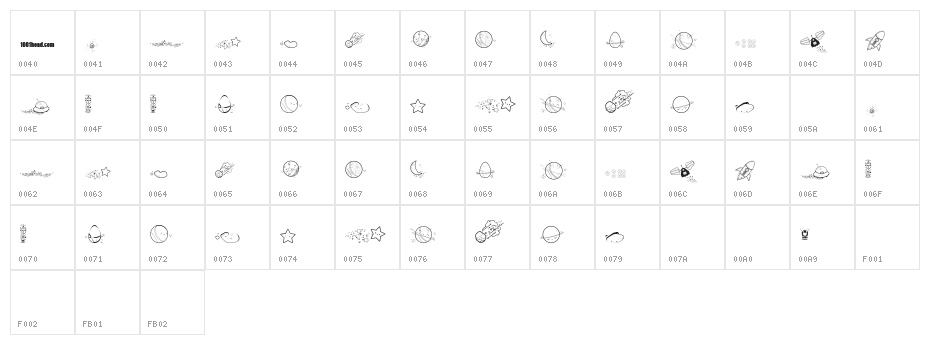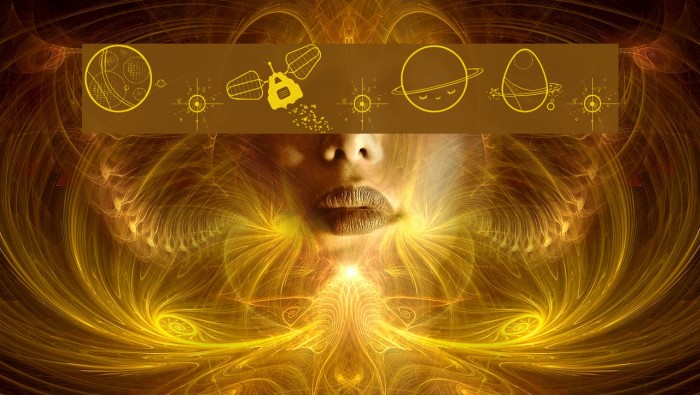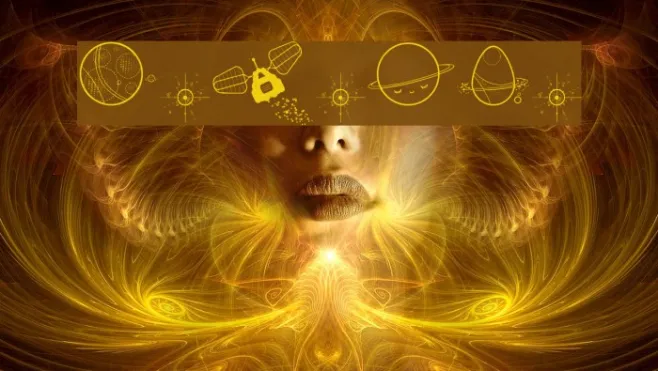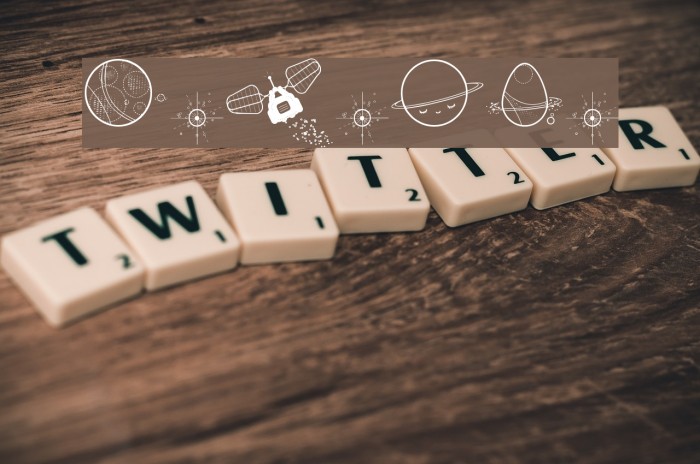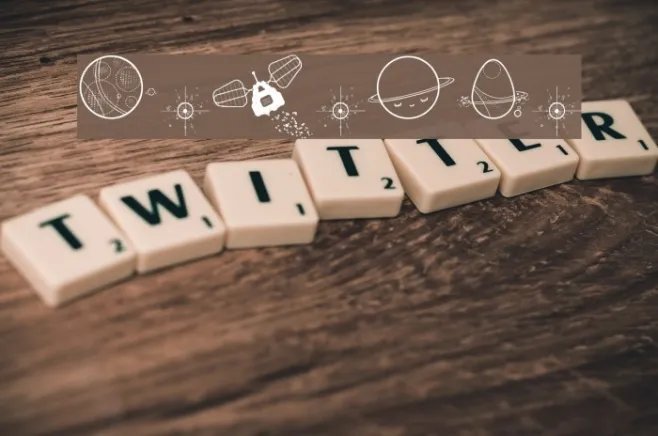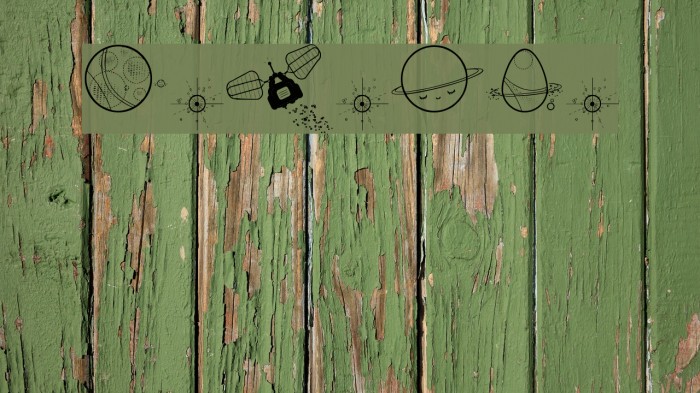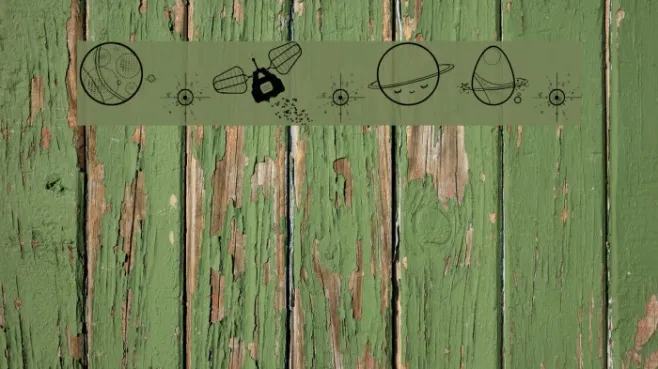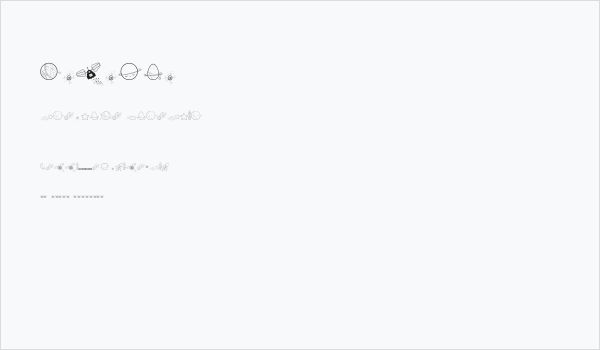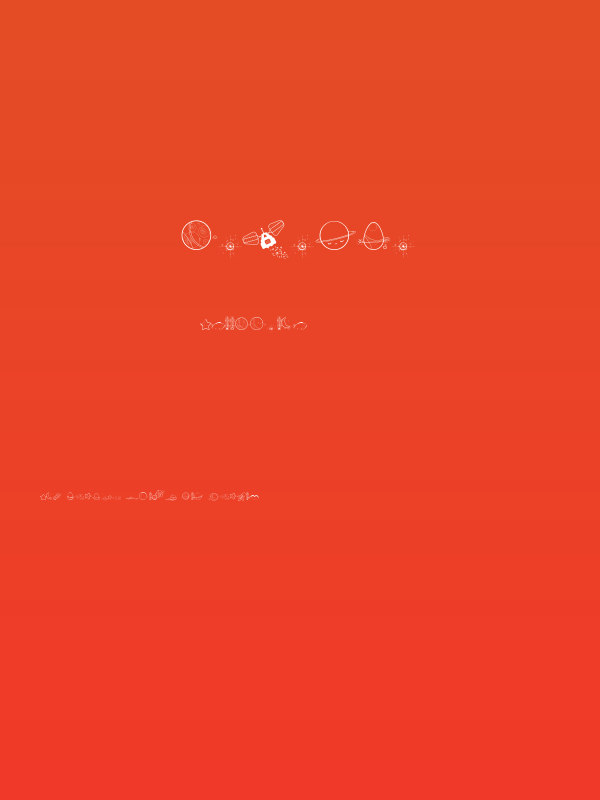
Galaxia Font
Galaxia Description
This is a decorative font featuring a whimsical collection of space-themed illustrations. Each character is represented by a unique celestial or cosmic element, such as planets, stars, rockets, and asteroids. The designs are intricate, with fine lines and detailed patterns that evoke a sense of wonder and exploration. The overall style is playful and imaginative, making it ideal for projects that require a touch of fantasy and creativity. The characters are well-spaced, ensuring clarity and readability despite their decorative nature.
| Use Case | Logos, Posters, Creative Projects |
| Proposed Projects | Ideal for children's books, space-themed event invitations, educational materials about astronomy, or creative branding for science fiction media. |